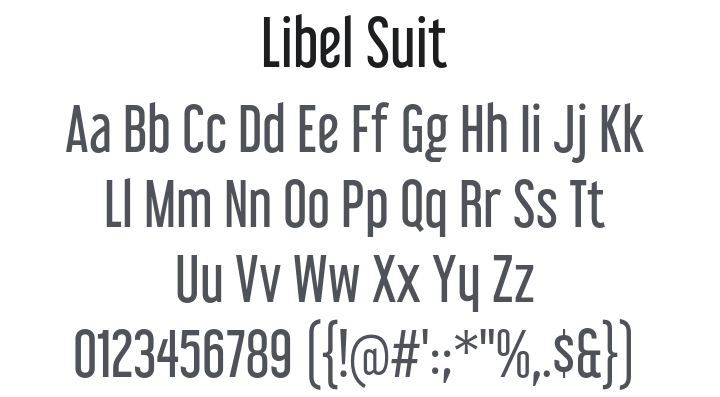
Libel Suit Font
About Libel Suit
Libel Suit is a flat-sided sans serif designed for clarity and efficiency in tight spaces. Its narrow build and angled stroke endings create a subtle personality that stays refined and timeless. The six-weight family with italics balances readability and character across headlines, labels, maps, and interfaces. Alternates, fractions, and ordinals add quiet flexibility, while full support for Latin, Greek, Cyrillic, and Vietnamese ensures global usability. Polished yet distinctive, Libel Suit delivers compact precision with understated confidence.